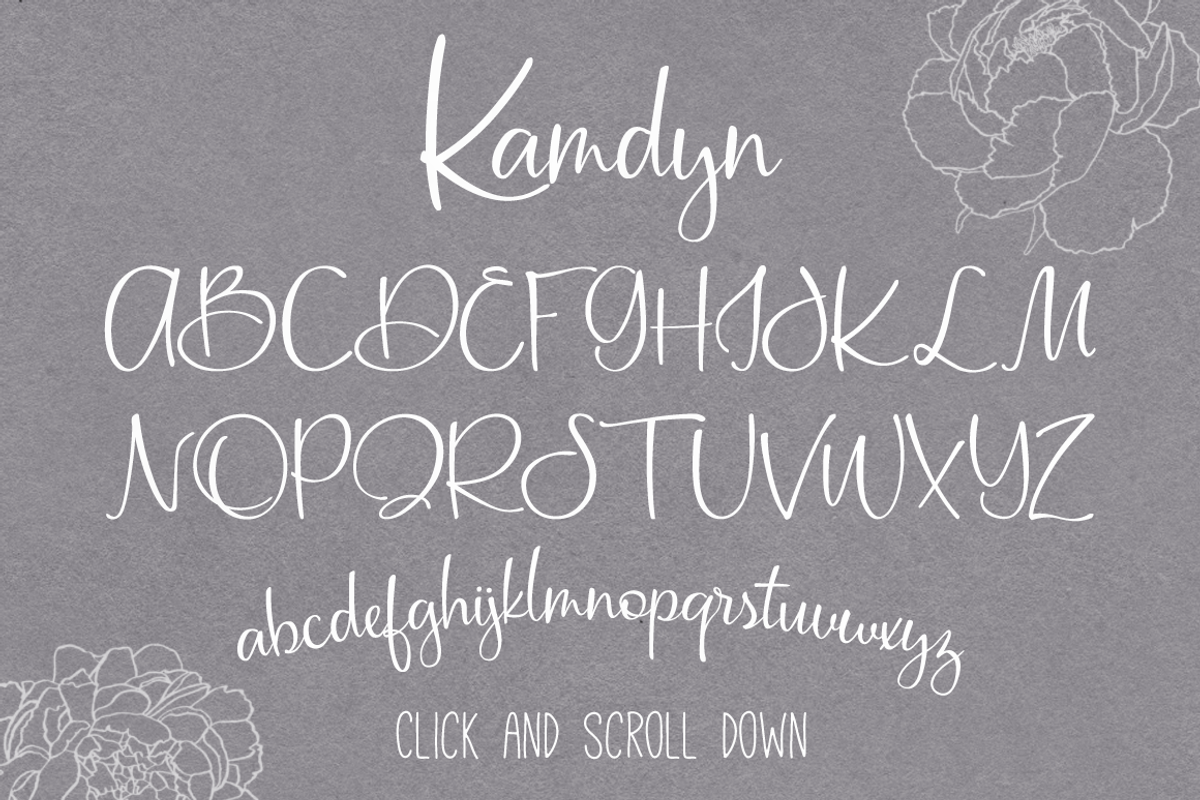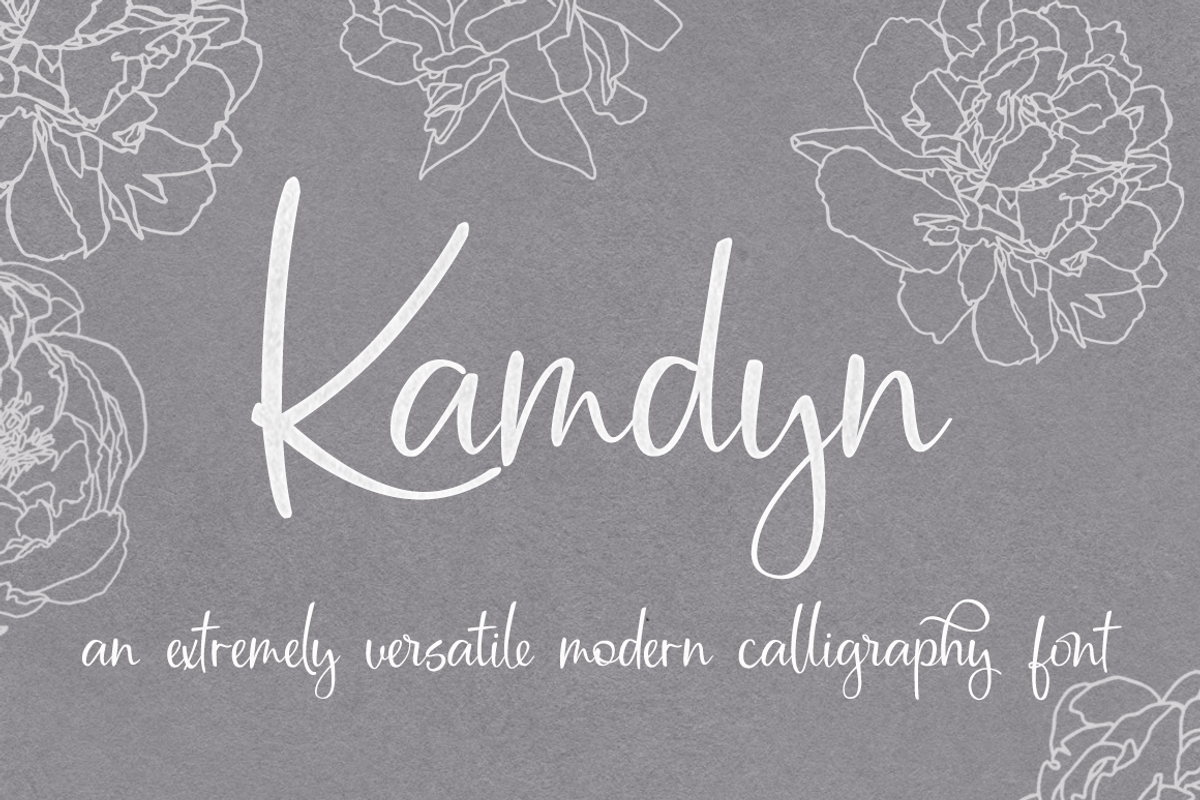
Kamdyn Calligraphy Font + Extras
BRAND NEW FONT Kamdyn is a hand-lettered modern calligraphy script font that includes discretionary ligatures, stylistic alternates, and swash characters. I created this font with several ligatures and also many disconnected characters to choose from to give your type a hand lettered look. My goal was to create a beautiful font with nice flow that resembles handwriting. Perfect for invitations, greeting cards, typographical art, logos, letterpress printing, and all sorts of other design projects.
I've made a special shortcut for you to add those cool dots between your numbers, like the ones seen on those fancy hand addressed envelopes. You will be able to quickly add those dots by typing the ^ on your keyboard. Try it out below in the live preview.